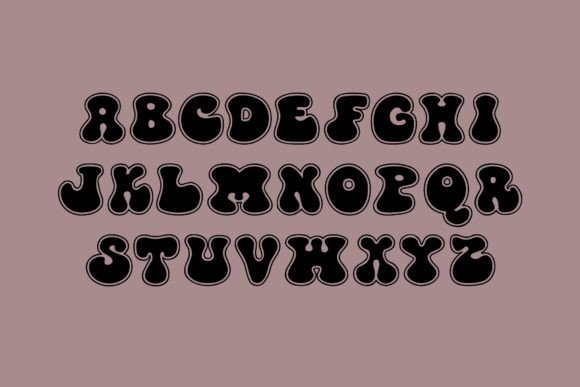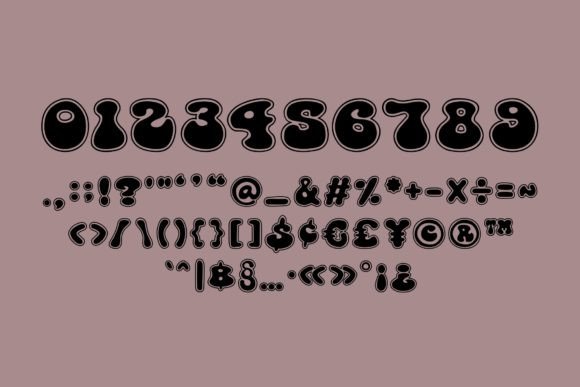
Introduction to Groovy Round Font
Groovy Round is a funny display font.
This font is the perfect fit for all of your logos, branding, social media, crafty DIY projects, and much more .
Key Features of Groovy Round Font
Why Choose Groovy Round Font?
Groovy Round Font offers exceptional quality and versatility, making it a valuable addition to your design toolkit. Whether you’re creating for personal projects or commercial use, Groovy Round Font delivers professional results.